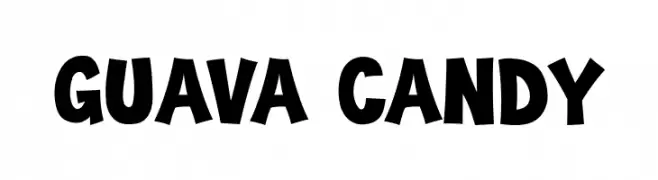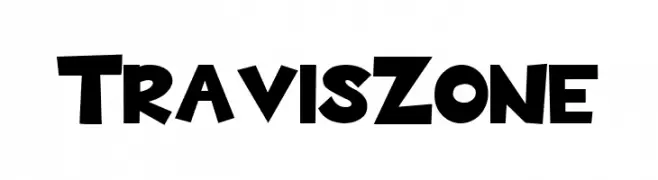
( Fonts by StringLabs )
A bold, bubbly font with a shiny, playful style.
( Fonts by 7NTypes )
A playful, hand-drawn font with a whimsical and friendly style.
( Fonts by Tokokoo Studio )
A bold, playful font with a hand-drawn, whimsical style.
( Fonts by Green Adventure Studio )
A bold, playful font with a whimsical, cartoon-like style.
( Fonts by StringLabs )
A bold, angular font with a playful and dynamic style.